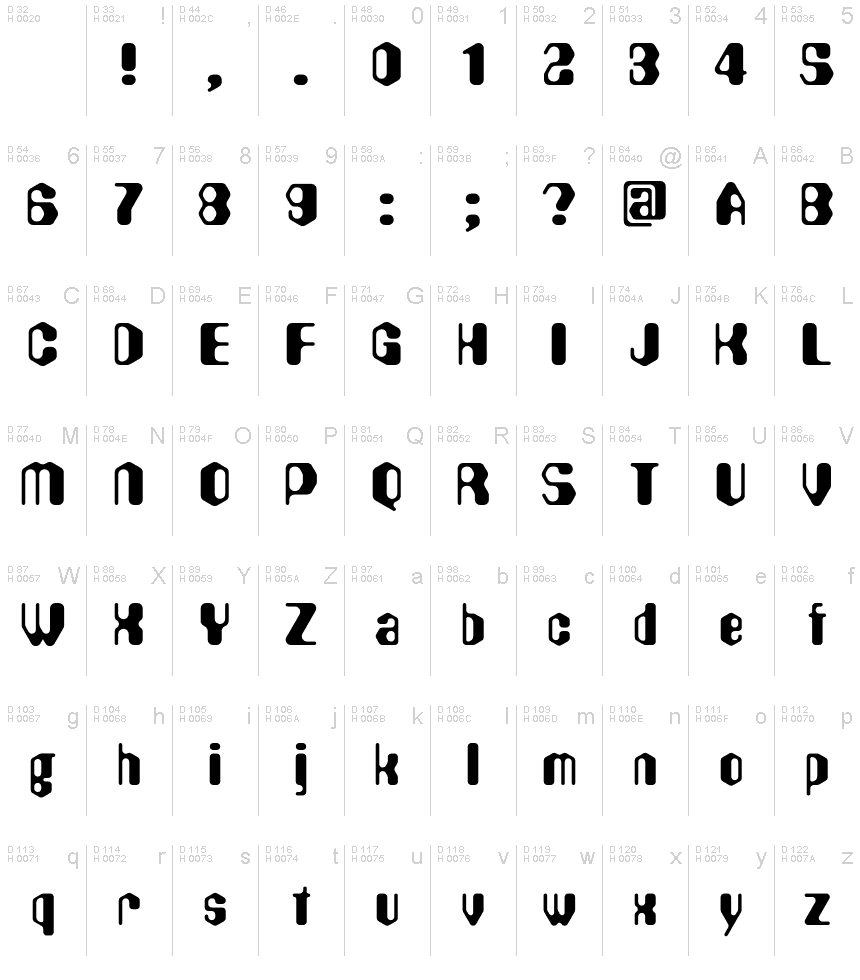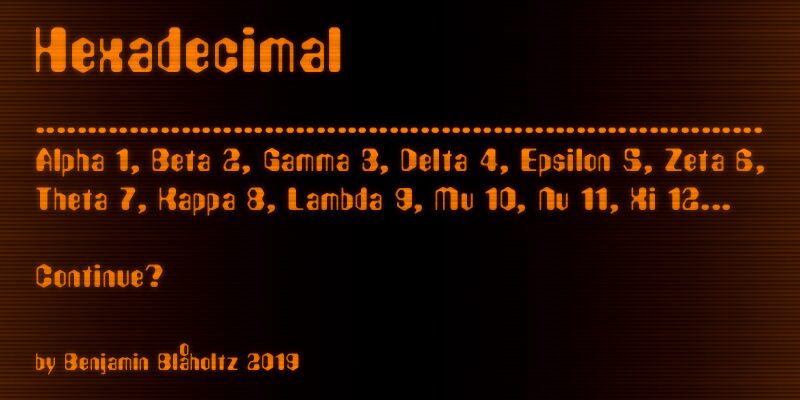
Hexadecimal
Hexadecimal is a digital, retro sci-fi style font, inspired by the iconic font "Countdown" but instead of being almost entirely rectangular, it relies more on hexagons. Something only used on the V in Countdown.
The general proportions are 3:4 and the consonants are thicker on the right while the vowels are thicker on the left, with a few exceptions.
It currently has upper and lower case letters, numbers, and basic punctuation, additional symbols will likely be added in the future, check back here for updates.